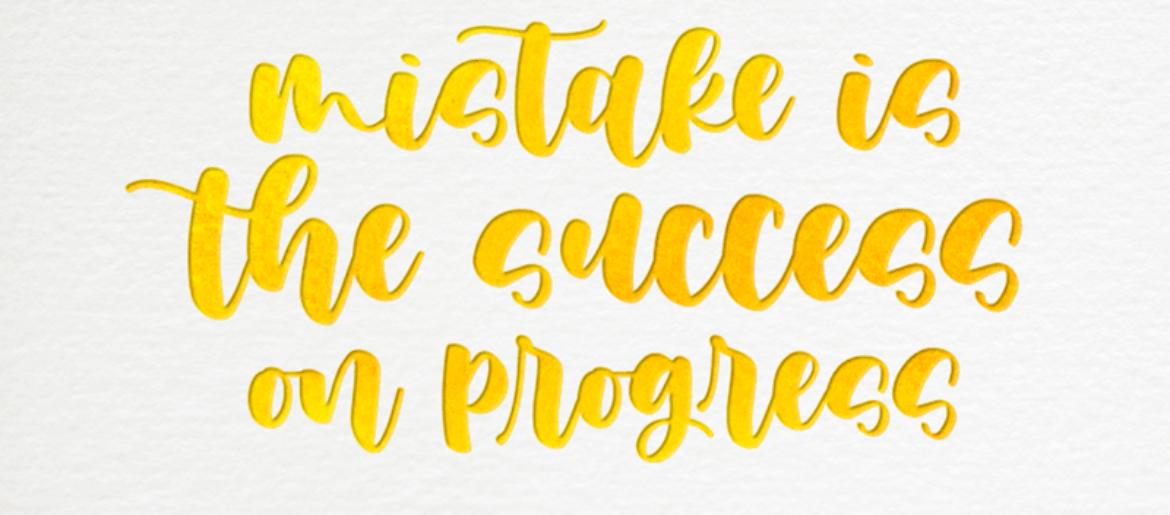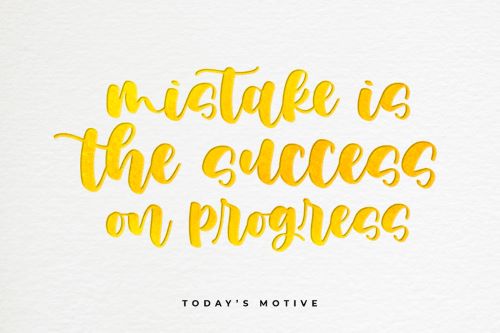
Muthiara Font
Muthiara Font is a graceful handwritten script typeface with flowing strokes and elegant curves. Its natural, romantic style makes it perfect for wedding invitations, logos, quotes, branding, and feminine designs. Muthiara adds warmth, beauty, and a delicate handcrafted touch to any creative project.
➤ Font Name: Muthiara
➤ Designer: Abo Daniel Studio
➤ Style: Script > Calligraphy